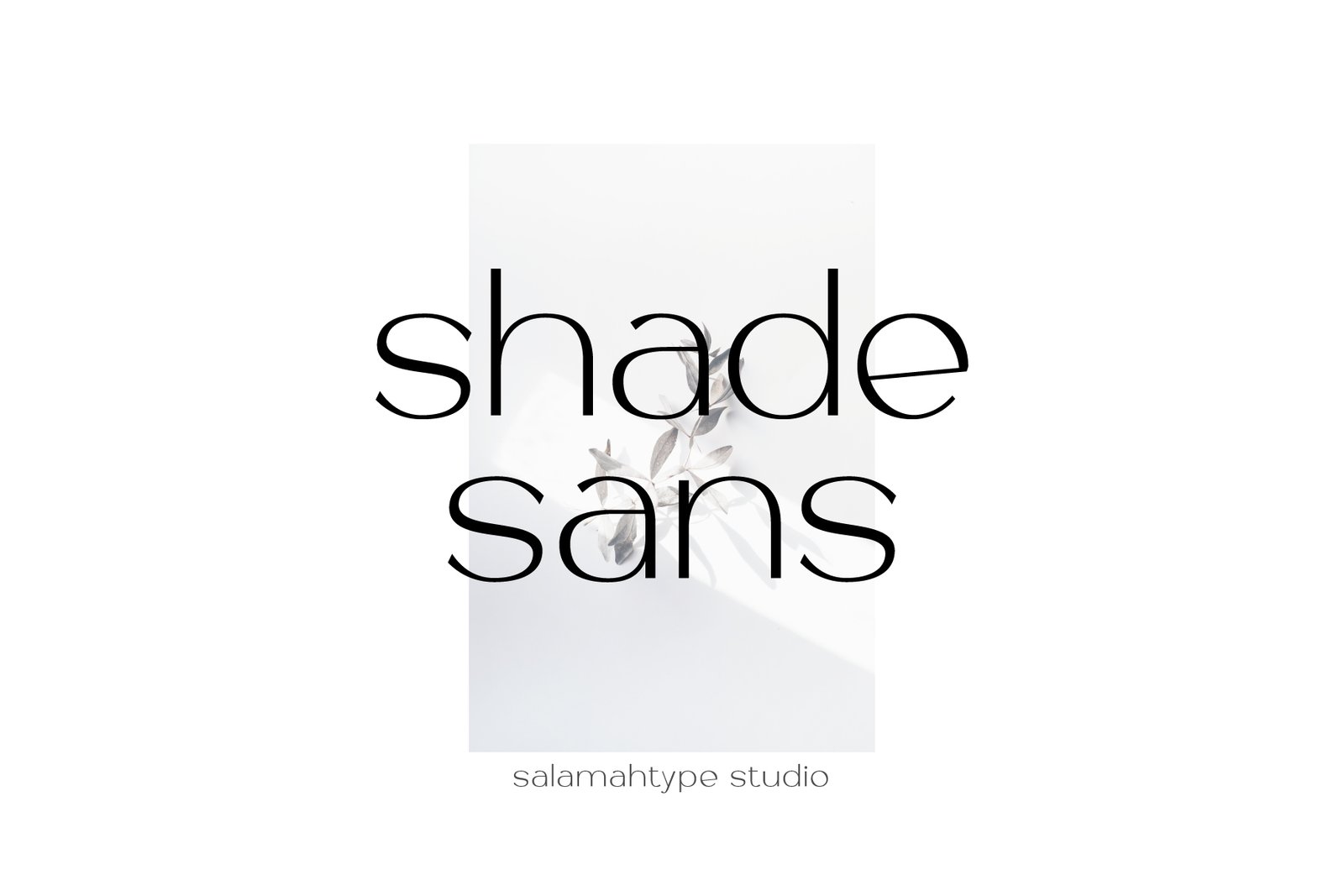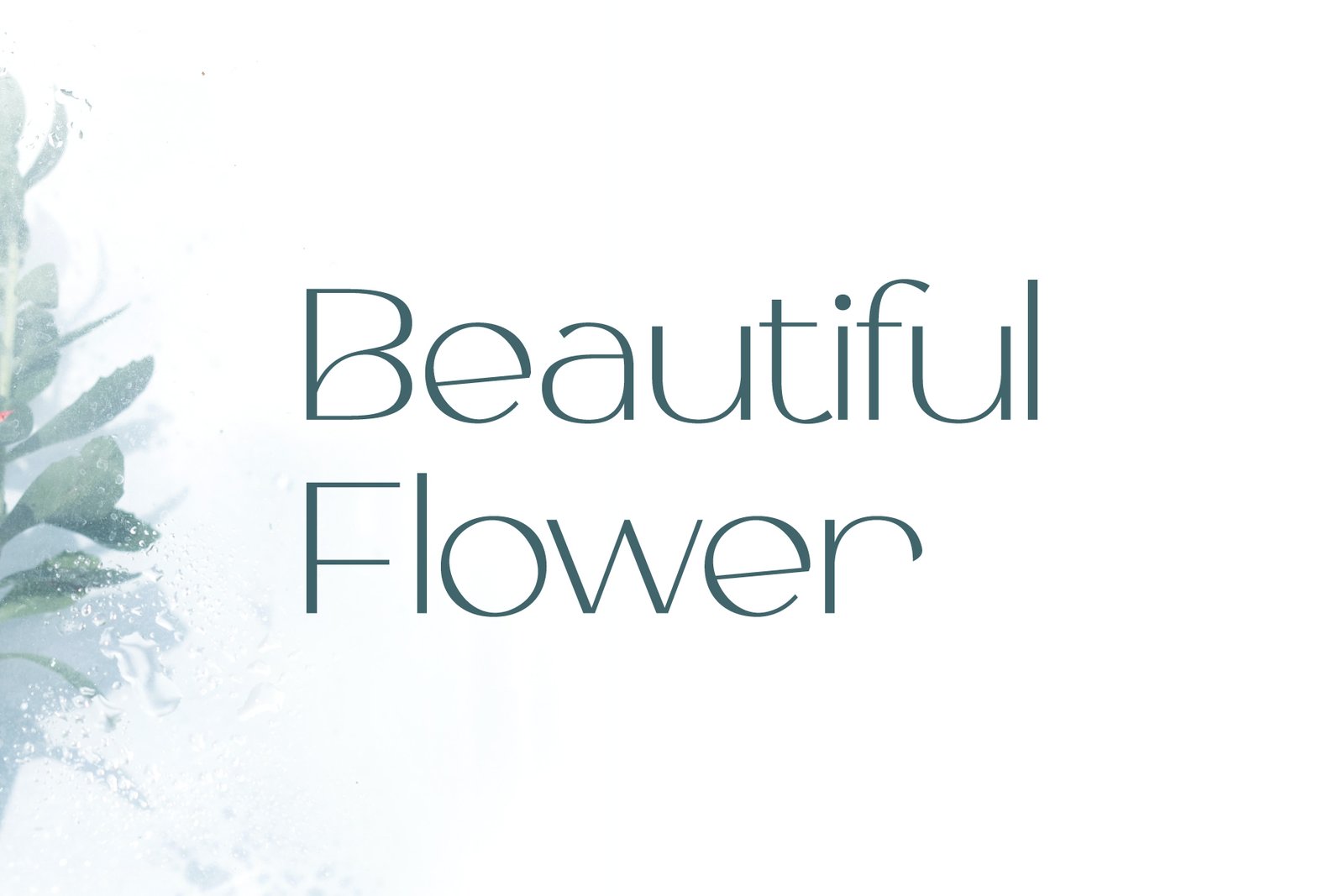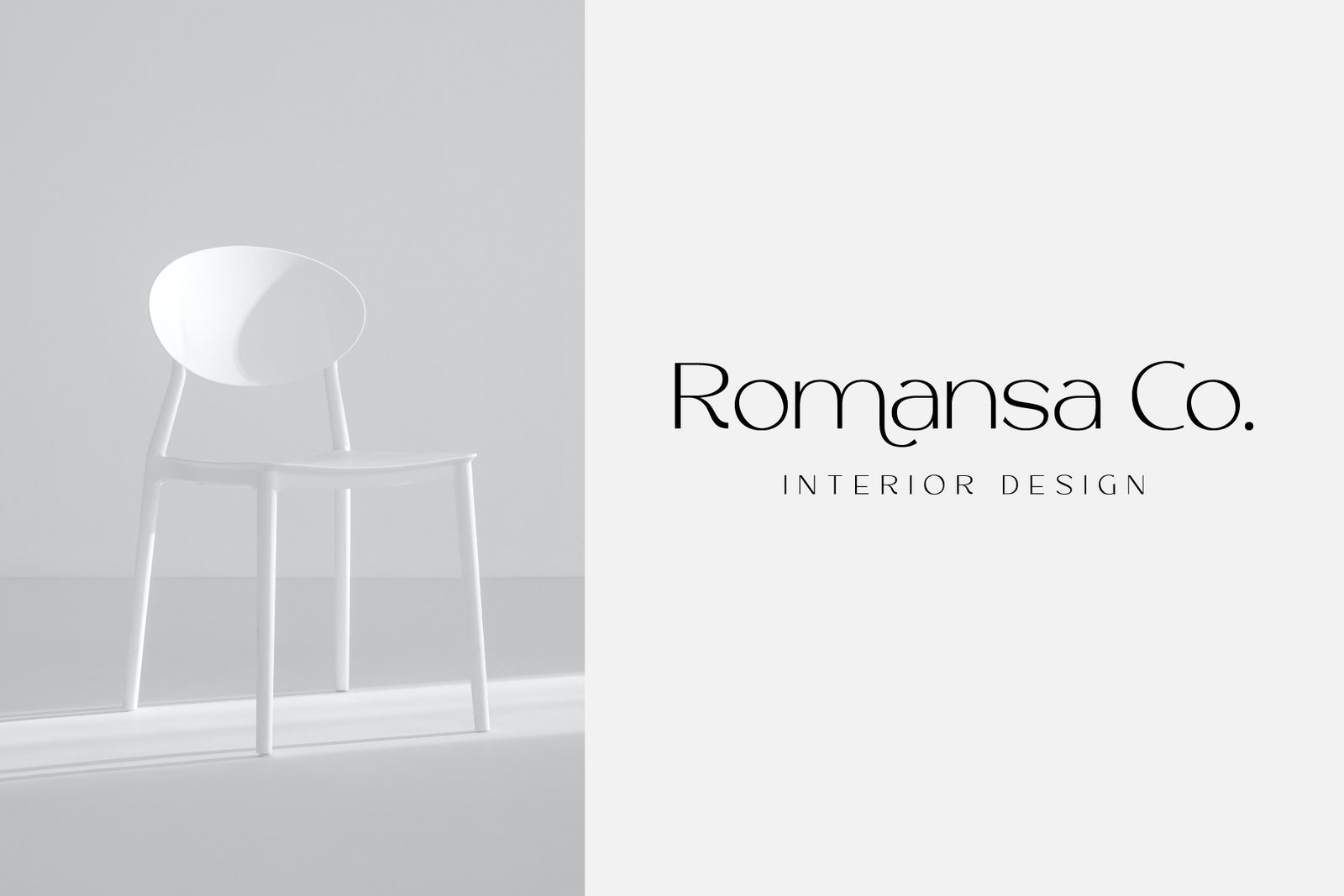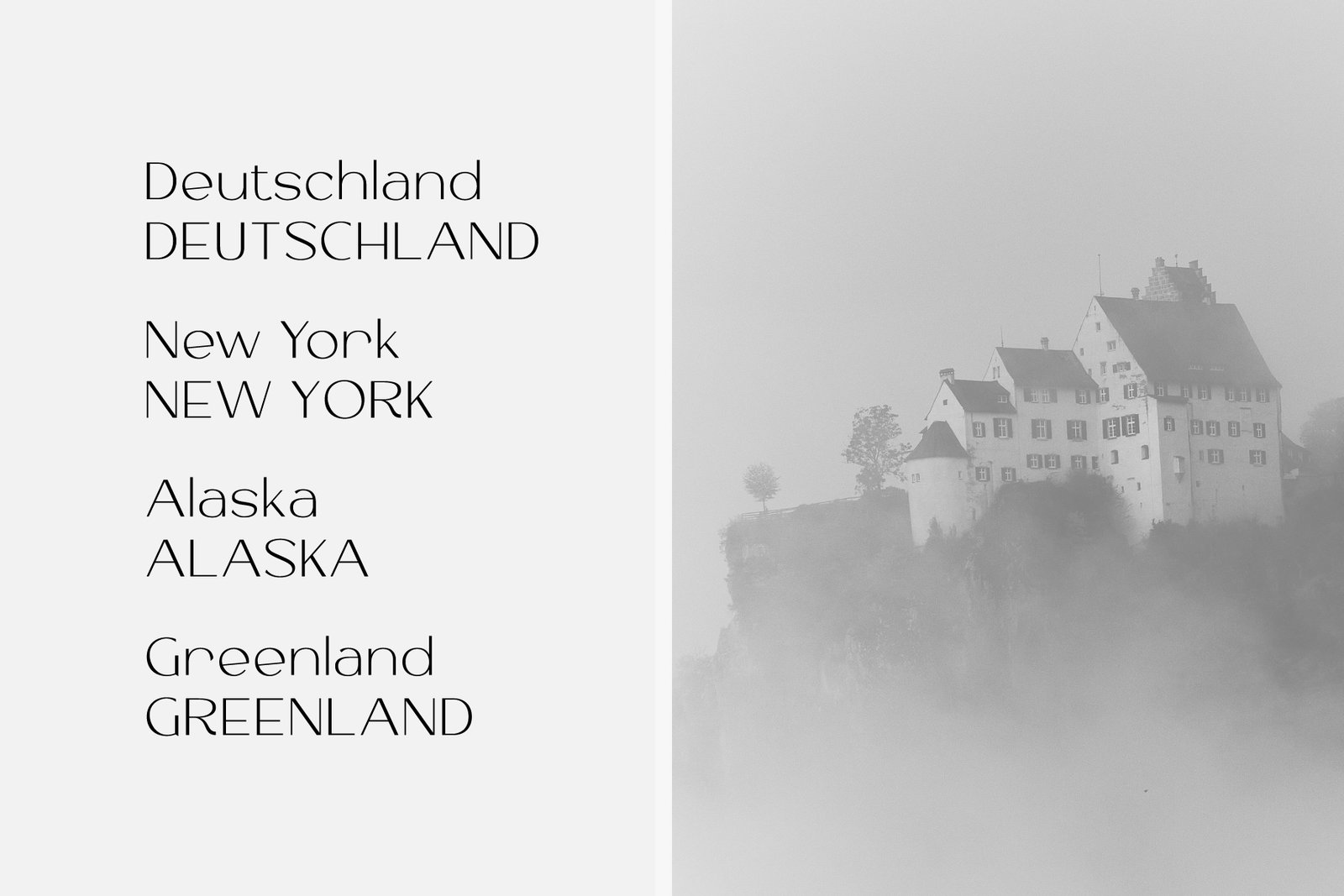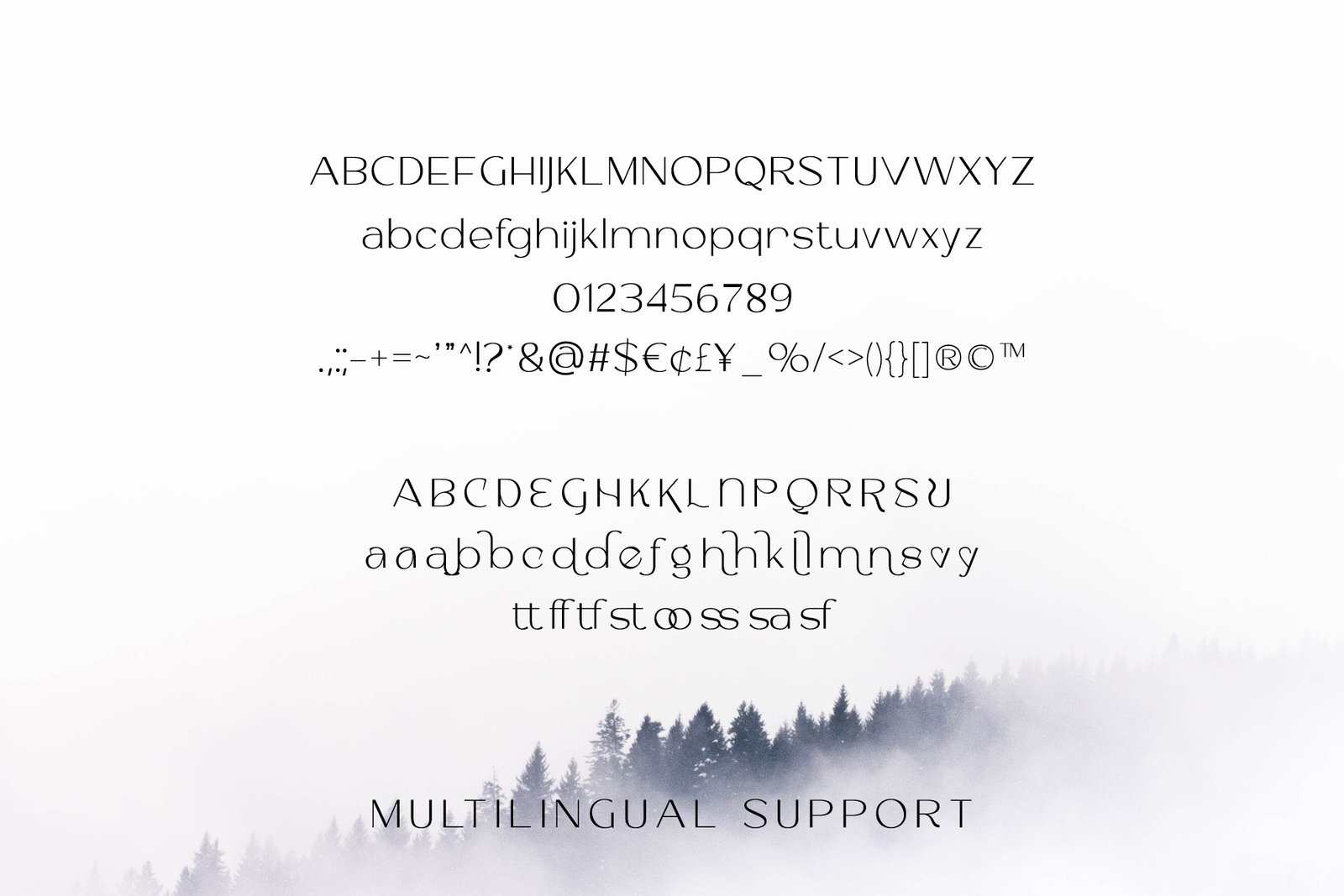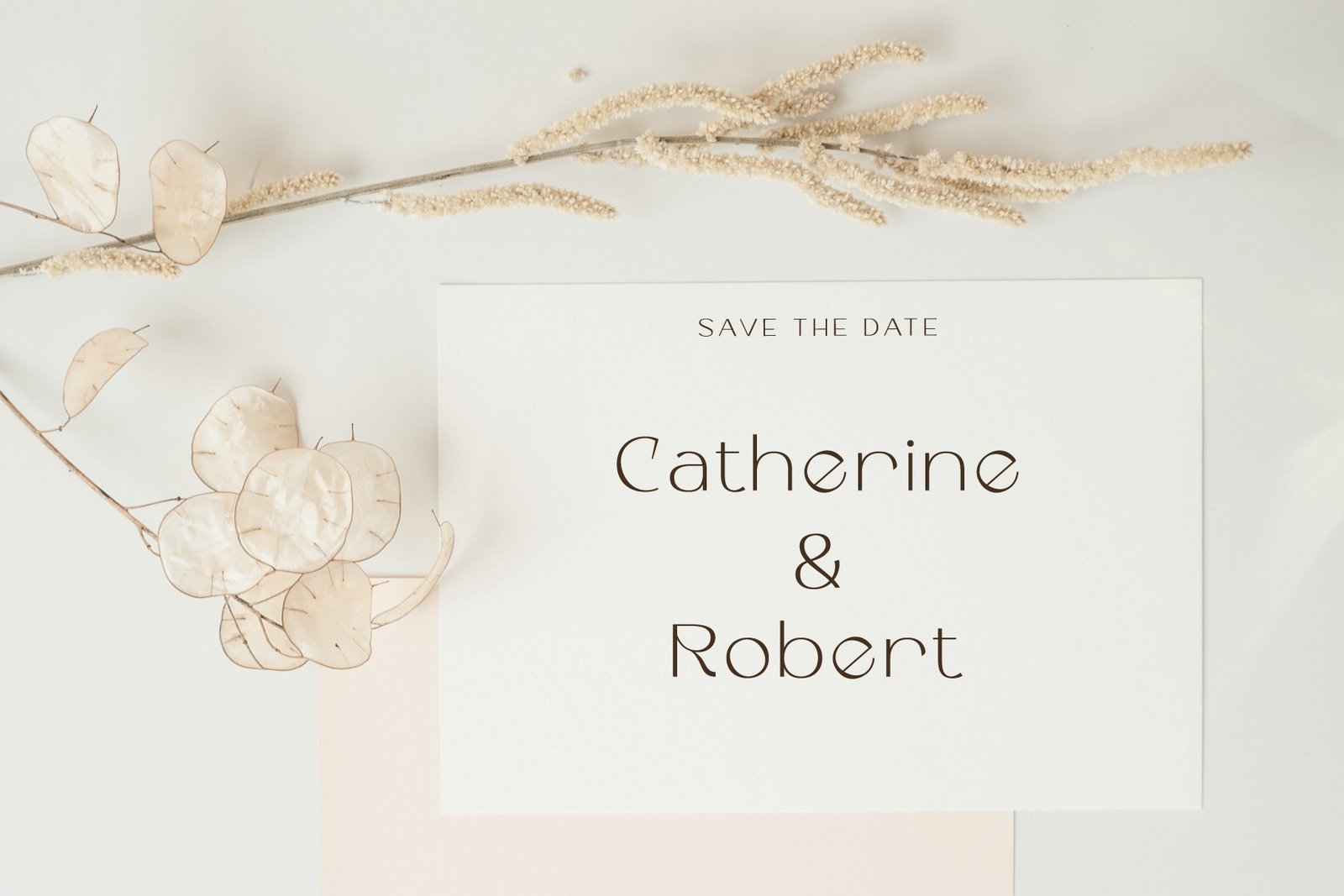
Shade Sans
About the Font
Shade Sans is a clean sans serif font. This font perfect for branding projects, logos, social media posts, advertisements, product packaging, wedding invitations, product designs, label, photography, watermark, stationery and so much more.Features :
• Uppercase and Lowercase
• Numbers and punctuation
• Ligature
• Alternate
• Multilingual Support